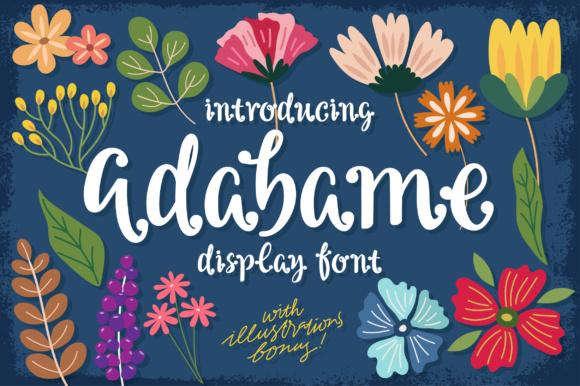
Discover the Charm of Adabame Font: A Unique Script for Romantic Design Styles
In the world of typography, fonts play a crucial role in defining the aesthetic and tone of a design. For designers and crafters looking to infuse their projects with a touch of romance and elegance, the Adabame Font is an exceptional choice. This beautiful script font is specifically designed to create romantic design styles, characterized by its stunning women silhouettes and intricate flower illustrations.
What Makes Adabame Font Stand Out?
Adabame Font is not just another script font; it’s a unique blend of artistry and functionality. Its standout features include:
- Beautiful Women Silhouettes: The font incorporates gorgeous silhouettes of women, adding a touch of femininity and grace to any design.
- Flower Illustrations: Delicate flower illustrations are intricately woven into the design, making it perfect for projects that require a floral or romantic theme.
- Romantic Design Styles: Adabame is specifically crafted to create romantic design styles, making it an ideal choice for wedding invitations, Valentine’s Day cards, and other love-themed projects.
Whether you’re a professional designer or a crafter looking for a unique font to elevate your projects, Adabame Font is an excellent choice. Its versatility allows it to be used in a variety of applications, including:
- Wedding Invitations: Create beautiful, one-of-a-kind wedding invitations that set the tone for a romantic and memorable day.
- Stationery: Add a touch of elegance to your stationery, making it perfect for special occasions or everyday use.
- Digital Art: Use Adabame Font to create stunning digital art pieces, such as romantic quotes, love letters, or social media graphics.
- Crafting: Incorporate Adabame Font into your crafting projects, like handmade cards, scrapbooking, or DIY home decor.
Why Choose Adabame Font?
With so many fonts available, why choose Adabame Font? Here are a few compelling reasons:
- Uniqueness: Adabame Font offers a distinctive style that will set your designs apart from the rest.
- Elegance: The font exudes elegance and sophistication, making it perfect for high-end designs or special occasions.
Tips for Using Adabame Font
To get the most out of Adabame Font, consider the following tips:
- Pair with Complementary Fonts: Combine Adabame Font with complementary fonts to create a visually appealing contrast.
- Experiment with Colors: Play with different color schemes to find the perfect match for your design.
- Use High-Quality Images: When using Adabame Font in digital art or crafting projects, ensure that your images are high-resolution for optimal results.
| Author | Caoca Studio |
Adabame Font is a unique and captivating script font that can elevate your designs to new heights. With its beautiful women silhouettes and flower illustrations, it’s the perfect choice for creating romantic design styles. Whether you’re a designer or crafter, Adabame Font is sure to inspire your creativity and help you produce stunning projects.